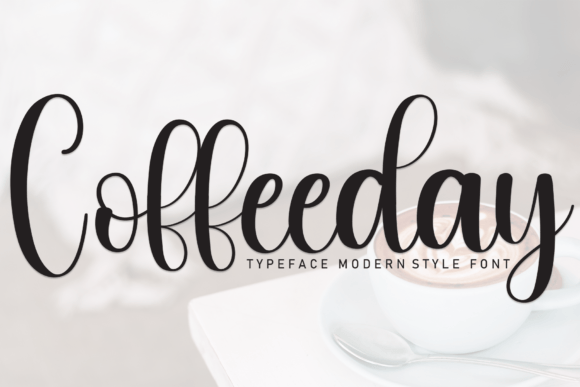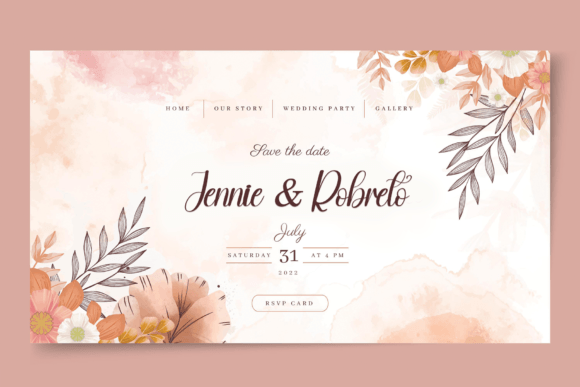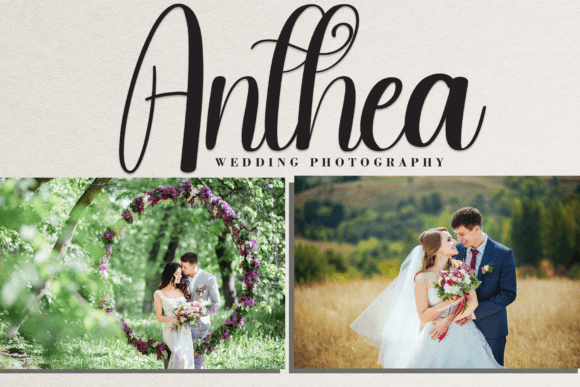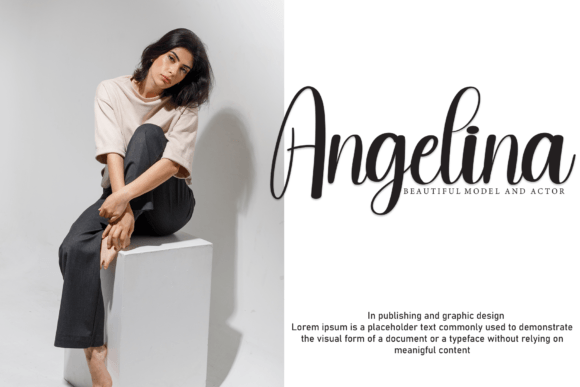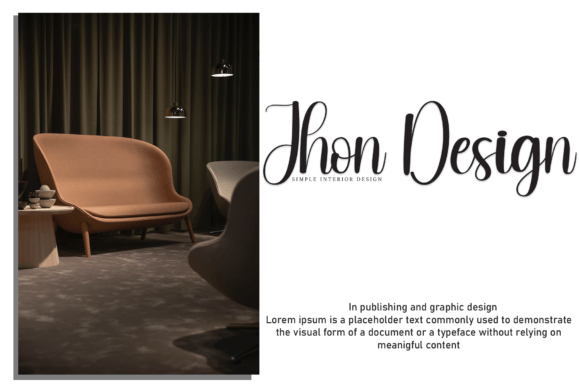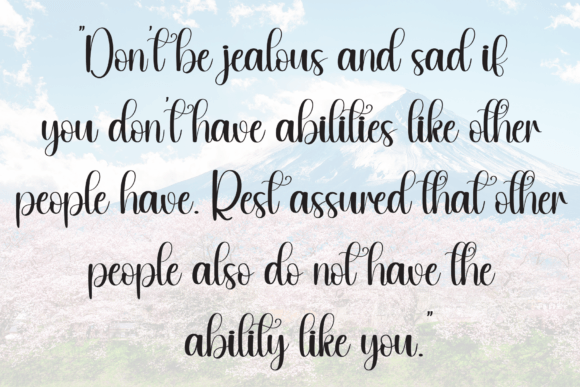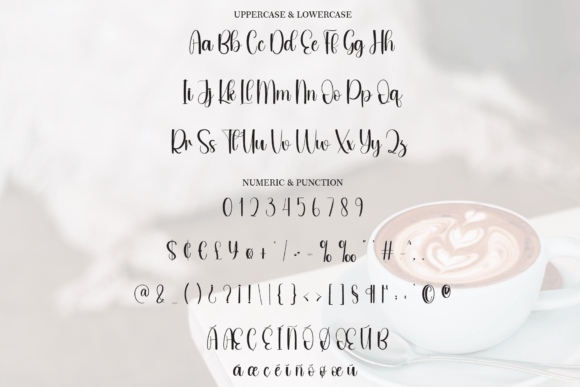
The Perfect Cup for Your Design: Introducing Coffeeday Font
Have you ever been sipping your morning coffee, brainstorming ideas for your next design project, and suddenly, a spark of inspiration hits you? That’s exactly what happened to us when we stumbled upon the charming Coffeeday Font. Its whimsical and playful feel instantly captured our attention, and we knew we had to share it with you.
As a friendly and handwritten font, Coffeeday is perfect for adding a touch of warmth and personality to your designs. Whether you’re crafting wedding invitations, greeting cards, or any other creative project, this font is sure to bring a smile to your audience’s faces. And as designers, we know that having the right tools at our disposal can make all the difference in bringing our ideas to life.
Coffeeday Font Key Features
- Unique Characteristics: The font features a unique blend of modern and vintage elements, creating a distinctive and eye-catching visual style.
Coffeeday Font Review
I recently had the chance to work with the Coffeeday Font, and I have to say, it’s a unique and interesting addition to my design library. Here are my honest thoughts:
- The Coffeeday Font has a distinctive, hand-drawn feel that can add a touch of personality to designs.
- The font is well-suited for coffee shops, cafes, and other businesses in the food and beverage industry.
- The font comes in a range of weights and styles, making it easy to customize and use in different contexts.
- The font may not be suitable for formal or professional designs, as its hand-drawn feel can be seen as unpolished.
- The font may not be as readable in smaller sizes, which can be a challenge in certain design applications.
- The font is not as extensive as some other font libraries, which may limit its versatility.
The Coffeeday Font is a fun and quirky addition to any design library. While it may have some limitations, it can be a great choice for businesses looking to add some personality to their brand. With its unique feel and range of customization options, the Coffeeday Font is definitely worth considering for the right project.
Coffeeday Font: A Practical Application Guide
Tips for Getting the Most Out of Coffeeday Font
Use the Coffeeday Font for modern and professional designs.
Pair the font with other modern fonts for a clean and sleek look.
Use the font in headings and titles to create visual hierarchy.
The Coffeeday Font is ideal for:
Brochures and flyers.
Business cards and letterheads.
Websites and landing pages.
Social media graphics and ads.
Alternatives to Coffeeday Font
Lato is a modern sans-serif font that is highly legible and versatile. It is suitable for a wide range of designs, from corporate materials to digital interfaces. Compared to Coffeeday Font, Lato has a more neutral tone and is less ornate, making it a great choice for clean and minimalist designs.
Montserrat is a geometric sans-serif font that is inspired by the urban environment of Montserrat, a mountain range in Argentina. It is highly legible and works well in digital interfaces, signage, and corporate materials. Compared to Coffeeday Font, Montserrat has a more geometric and modern feel, making it a great choice for modern and edgy designs.
Open Sans is a modern sans-serif font that is highly legible and versatile. It is designed to be clear and readable in digital interfaces and is a popular choice for web design. Compared to Coffeeday Font, Open Sans has a more neutral tone and is less ornate, making it a great choice for clean and minimalist designs.